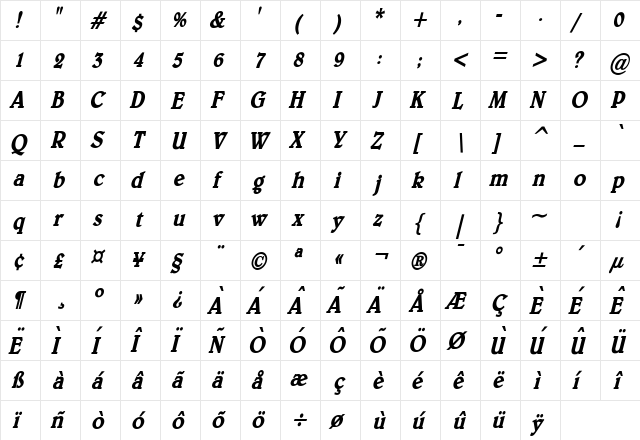
Blew Thin Bold Italic Font Preview
Blew Thin Bold Italic
Blew Thin Bold Italic Font Details
Design Context for Blew Thin Typeface
Blew Thin is a composed and adaptable typeface that performs quietly and consistently across a wide range of design contexts. The dynamic lean of this cut emphasises speed and emphasis in any layout. Its bold stroke weight gives it real presence on the page.
Pro Tip: Use Blew Thin for emphasis, pull quotes, and subheadings where its slanted energy can add rhythm to the layout.